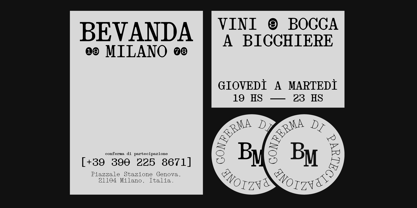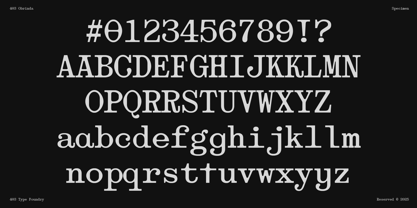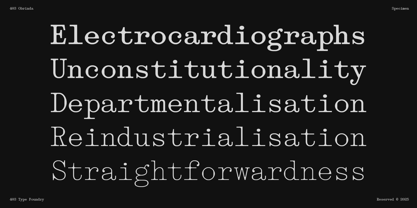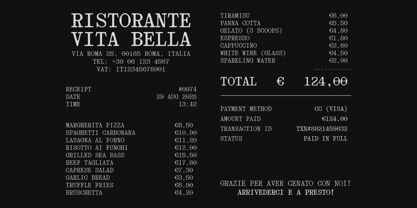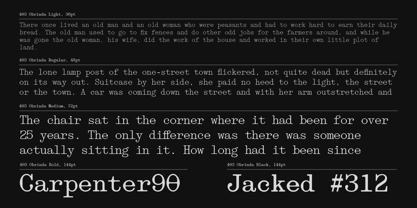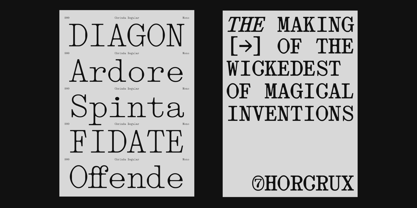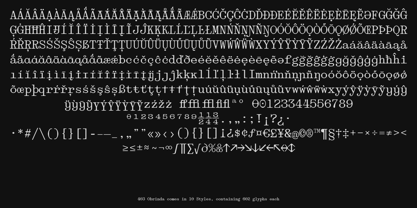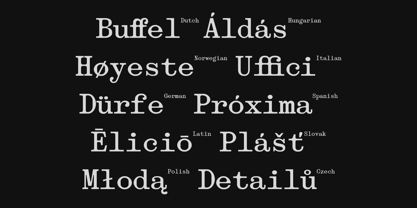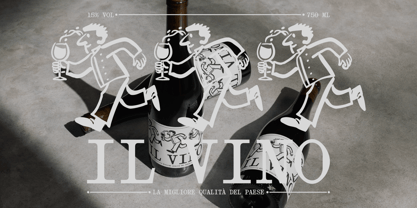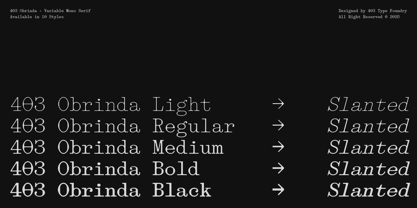
403 Obrinda
by 403TF
The 403 Obrinda Font Family was designed by Umar Al Farouq, Jodi El Ghazi, Febri Riansah and published by 403TF. 403 Obrinda contains 10 styles and family package options.
Meet 403 Obrinda, the monospaced typeface where mechanical precision and humanistic warmth collide. Designed for clarity but engineered for character, Obrinda breaks free from the sterile confines of typical fixed width fonts. Its robust serifs and clean architecture deliver a powerful rhythm, making it a uniquely versatile tool for brands and creatives who demand both structure and style. If you’re searching for a font that feels both timelessly familiar and distinctly contemporary, your search ends here. At its core, 403 Obrinda is a tribute to the golden age of typewriters, reimagined for the digital frontier. We didn't just create a monospaced font, we crafted a narrative tool. Each character is built with intention, featuring confident serifs that ground it in a heritage of utility and trust. Yet, its subtle design quirks and balanced proportions give it a sophisticated, approachable voice. The result is a typeface that feels intelligent and reliable, capable of conveying complex information with absolute clarity while infusing your work with an undercurrent of intellectual chic. Obrinda’s deliberate structure doesn’t feel restrictive it feels purposeful. 403 Obrinda is the definitive workhorse for the discerning designer. It’s an essential asset for branding agencies building identities for tech startups, architectural firms, or modern heritage brands. For editorial designers, it’s perfect for crafting impactful headlines, data rich infographics, and distinctive pull quotes. UI/UX designers will find it indispensable for creating clean, legible interfaces, dashboards, and code blocks that are a pleasure to read. From minimalist packaging and striking posters to logotypes that need to communicate stability and innovation, Obrinda excels where structure meets expression. Key Features: 5 Weights & 10 Styles Full Variable Font Distinctive Serif Monospaced Design Extensive Language Support Precision Engineered Spacing Give your projects the structure they need and the character they deserve. Discover the power and personality of 403 Obrinda today. 403 Obrinda New Update v1.5: 1. Refined and Fixed some Letterforms 2. New Alternates/Opentype Features 3. Added Vietnamese Language Support  4. Fixed Font Naming for Monospaced
Designers: Umar Al Farouq, Jodi El Ghazi, Febri Riansah
Publisher: 403TF
Foundry: 403TF
Design Owner: 403TF